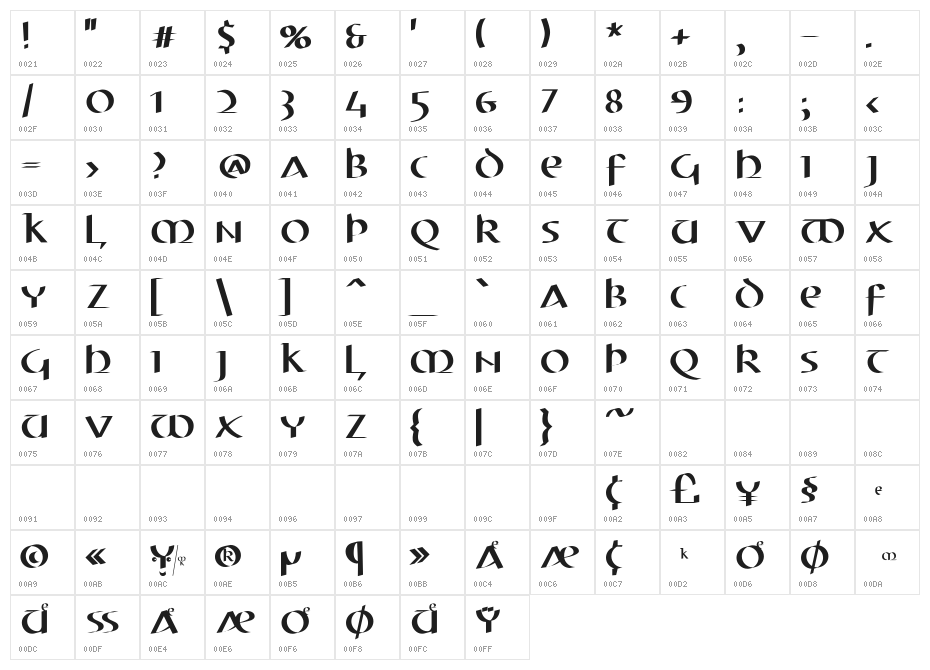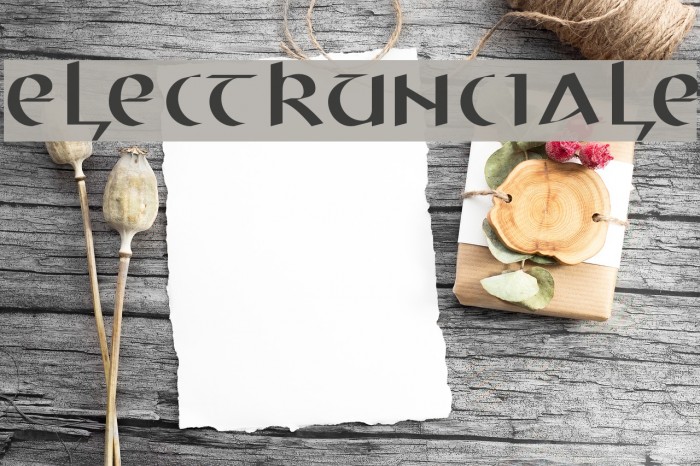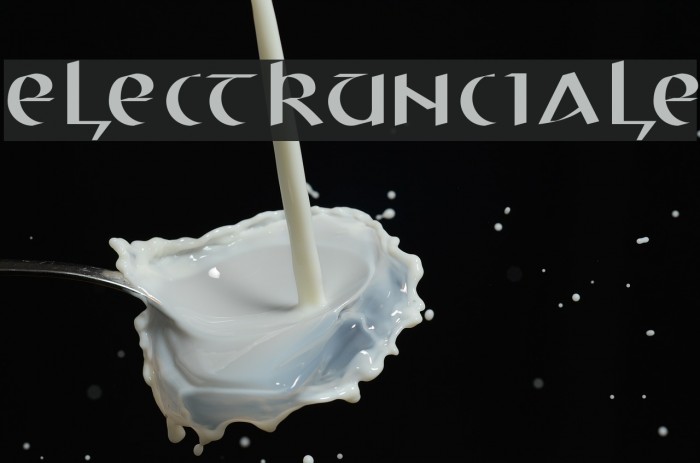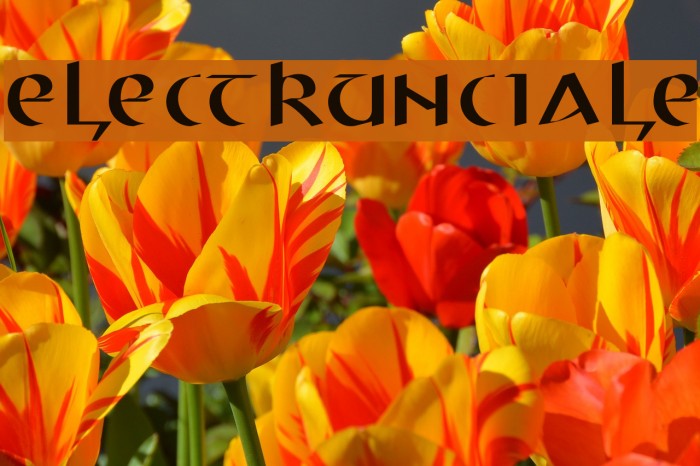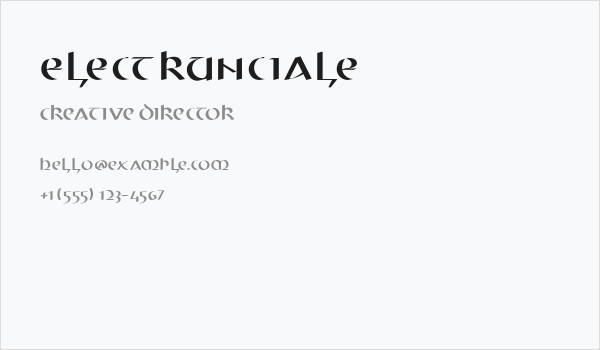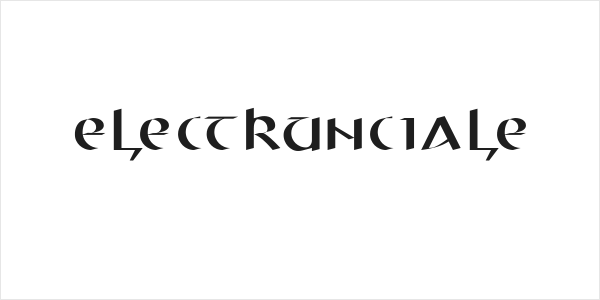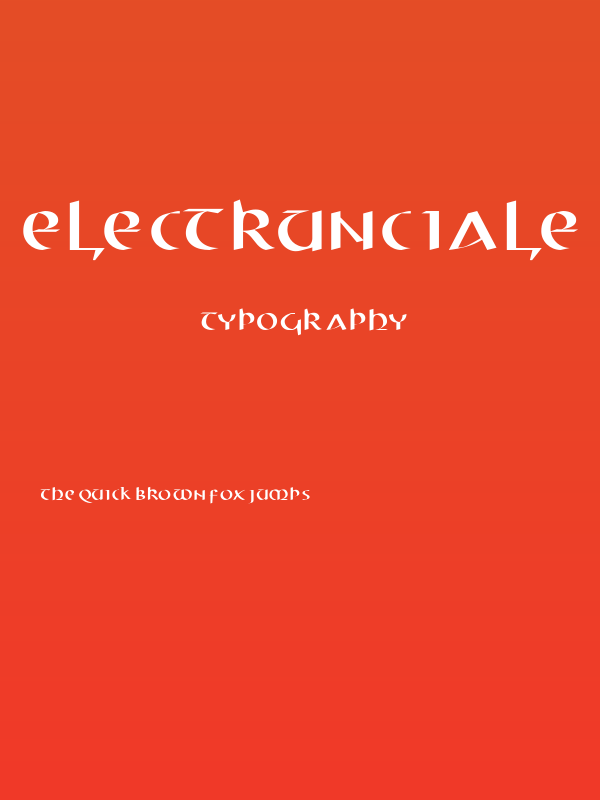
ElectrUnciale Font
ElectrUnciale Description
This font features a unique blend of traditional and modern elements, characterized by its bold, angular strokes and sharp serifs. The letters exhibit a distinct medieval influence, reminiscent of uncial script, yet with a contemporary twist that makes it suitable for modern design applications. The uppercase and lowercase letters maintain a consistent style, with a slightly condensed form that enhances readability. The numerals and special characters are crafted with the same attention to detail, ensuring a cohesive look across all text elements. This font's striking appearance makes it ideal for projects that require a touch of elegance and historical flair.
| Proposed Projects | Ideal for branding, book covers, posters, and any design requiring a historical or elegant touch. |